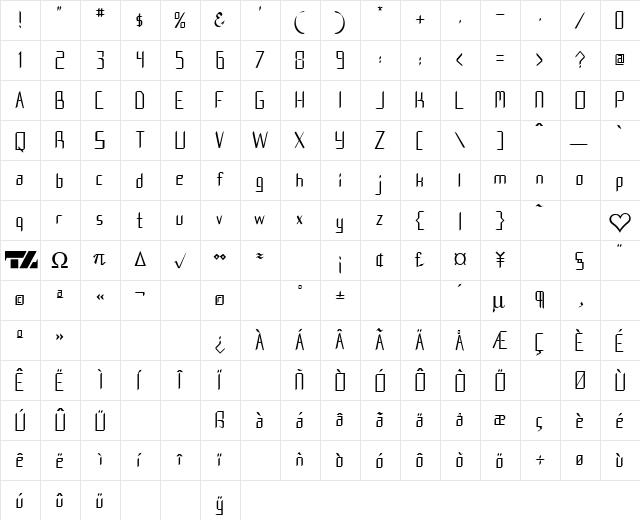
Nostra 2003 J Cool Font Preview
Nostra 2003 J Cool
Nostra 2003 J Cool Font Details
| Style | Cool |
| Copyright | 95 by Julius Thyssen. Other option of font called 'Creedmore' (by Jim Pearson). Now with new kern-pairs en much more legible. |
Design Context for Nostra 2003 J Typeface
Nostra 2003 J is a composed and adaptable typeface that performs quietly and consistently across a wide range of design contexts.